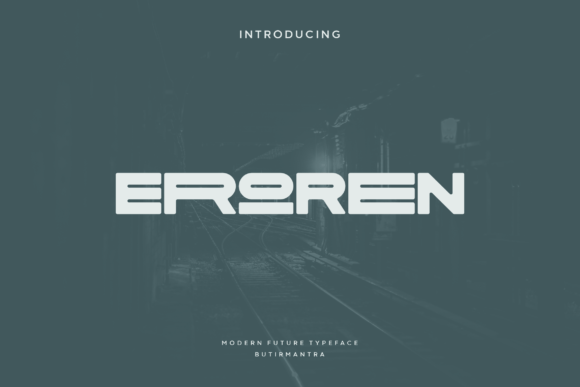
Introducing Eroren Font, a sans serif display font that takes typography to a whole new level. Eroren is not just a font; it's an artistic journey that captivates the senses and transforms designs into breathtaking masterpieces. Immerse yourself in the world of Eroren and experience the power of expression.
Eroren's unique style, with its captivating uppercase letters and meticulously crafted outline font, is a true marvel. It's a font that demands attention, inviting you to explore its intricate details and mesmerizing curves. As you embrace Eroren, your designs will transcend the ordinary and take on a life of their own.
Unleash Eroren's versatility and let your creativity soar. Whether you're crafting futuristic designs, captivating illustrations, or eye-catching posters, Eroren is your perfect companion. Its bold presence commands attention in titles and logos, while its elegant flow adds a touch of sophistication to magazines and various design projects.
With Eroren, you'll discover a transformative typographic experience. Its unique aesthetic will set your designs apart, making them stand out from the crowd. Eroren is more than just a font; it's an artistic tool that empowers you to tell stories, evoke emotions, and create designs that leave a lasting impact.
Embrace Eroren today and unlock the gateway to typographic excellence. Let your designs shine brighter than ever before, captivating your audience and leaving them in awe. With Eroren, the possibilities are endless, and the journey of creative expression begins. Embark on this adventure and witness the magic unfold.